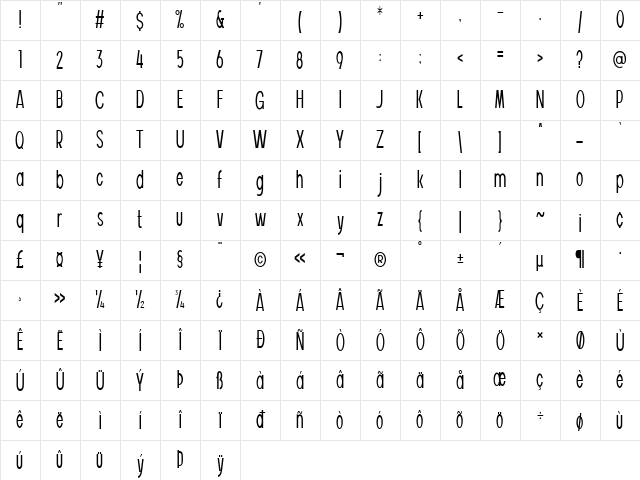
Vuldo Regular
Foundry: Khurasan
Designer: Khurasan
Design Context for Vuldo
Vuldo is a composed and adaptable typeface that performs quietly and consistently across a wide range of design contexts.